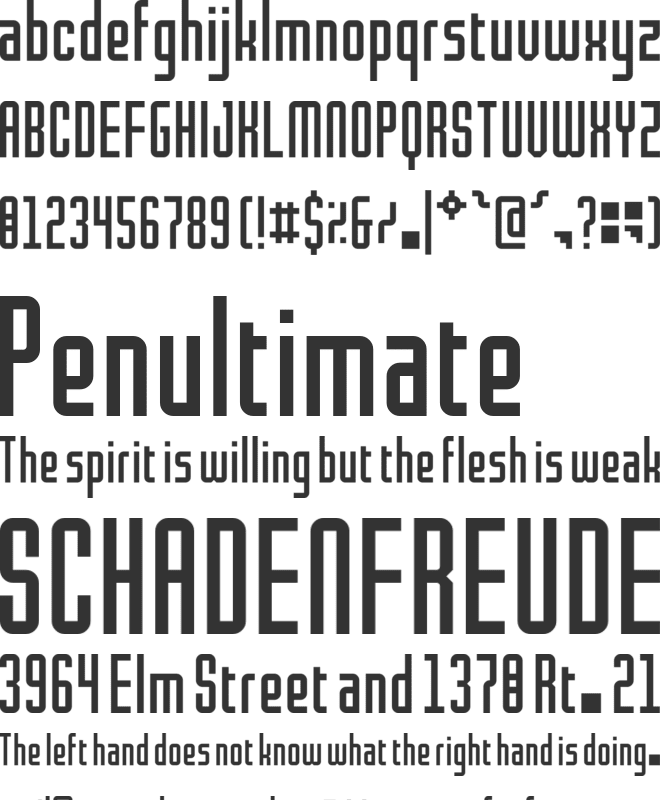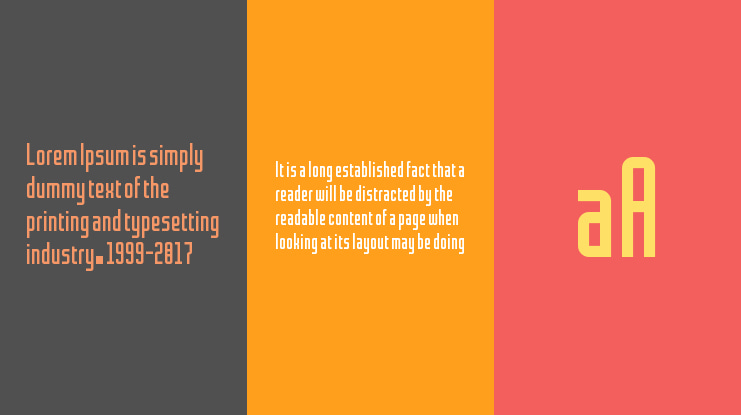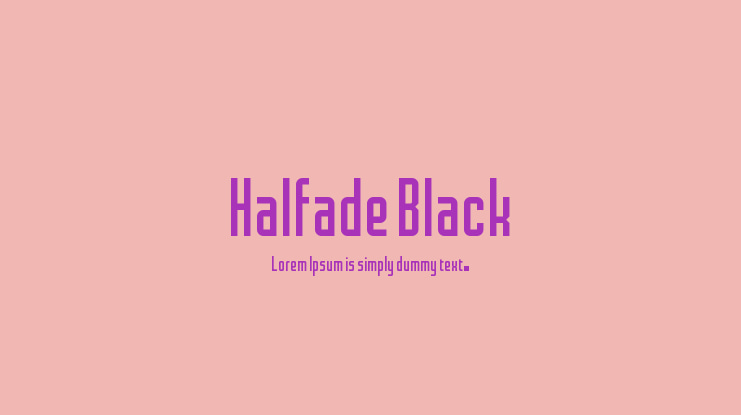
Halfade Black Font Family
A half-faded sans-serif made to be condensed and good for speedreading. Supports English only for now, due to software issues which nearly broke the font.
RECENTLY UPDATED with a solid variant called Halfade Black which has more language support.